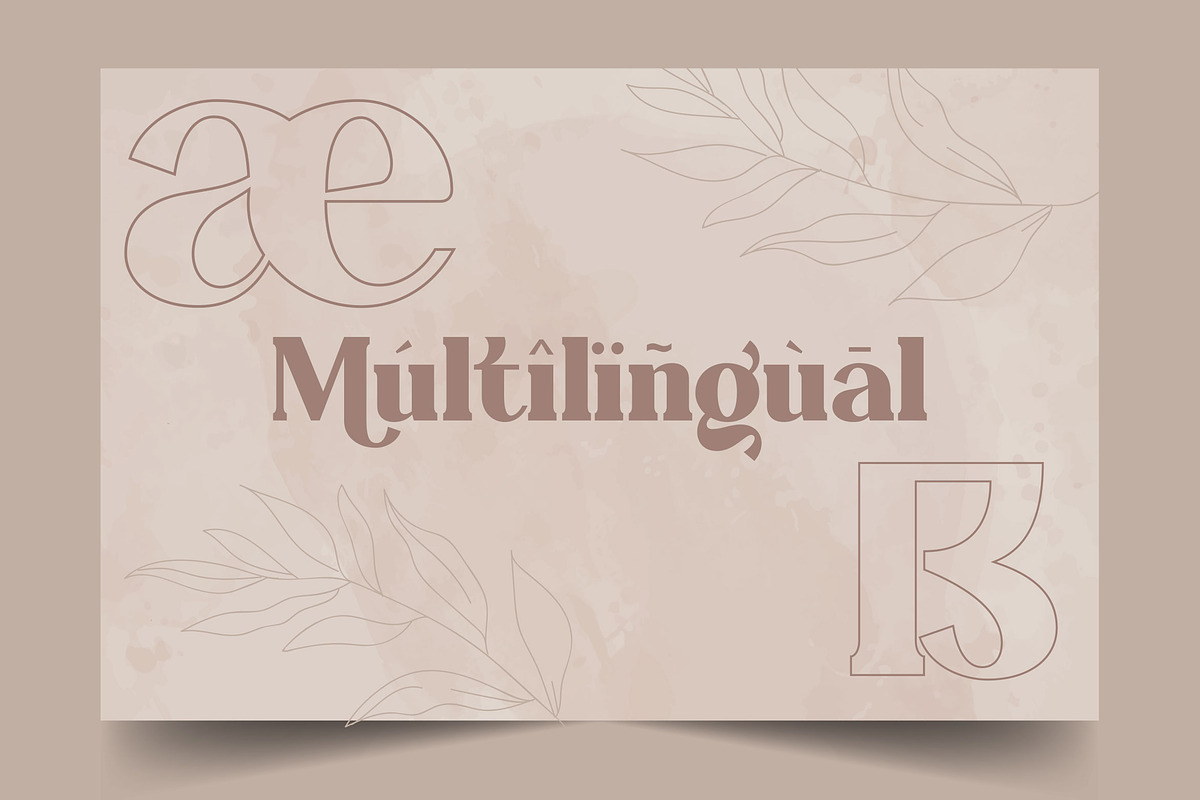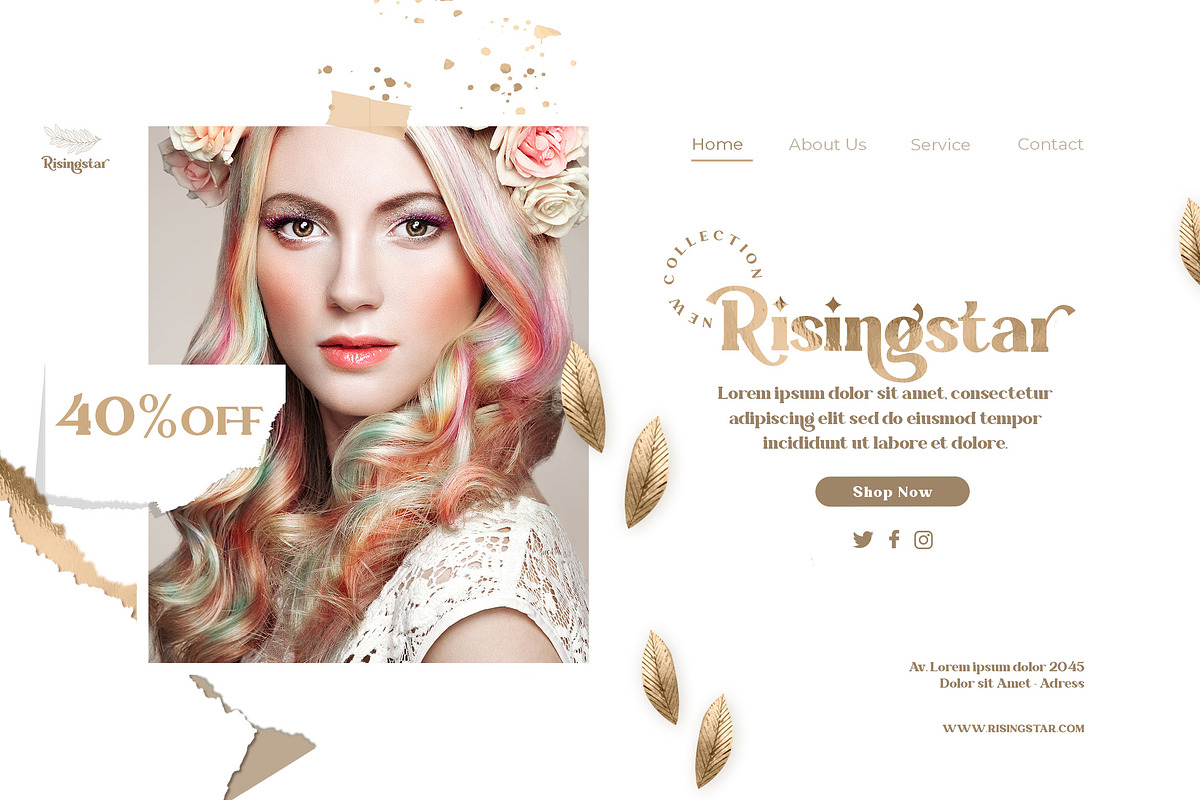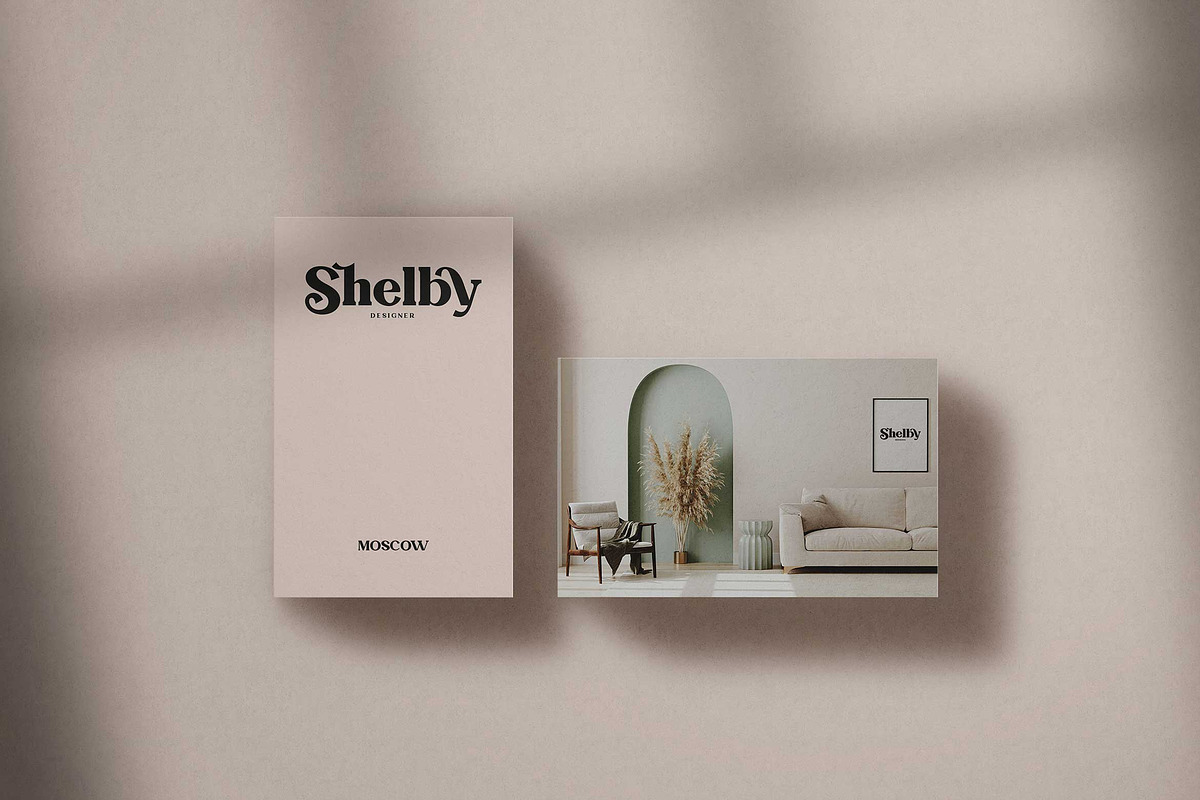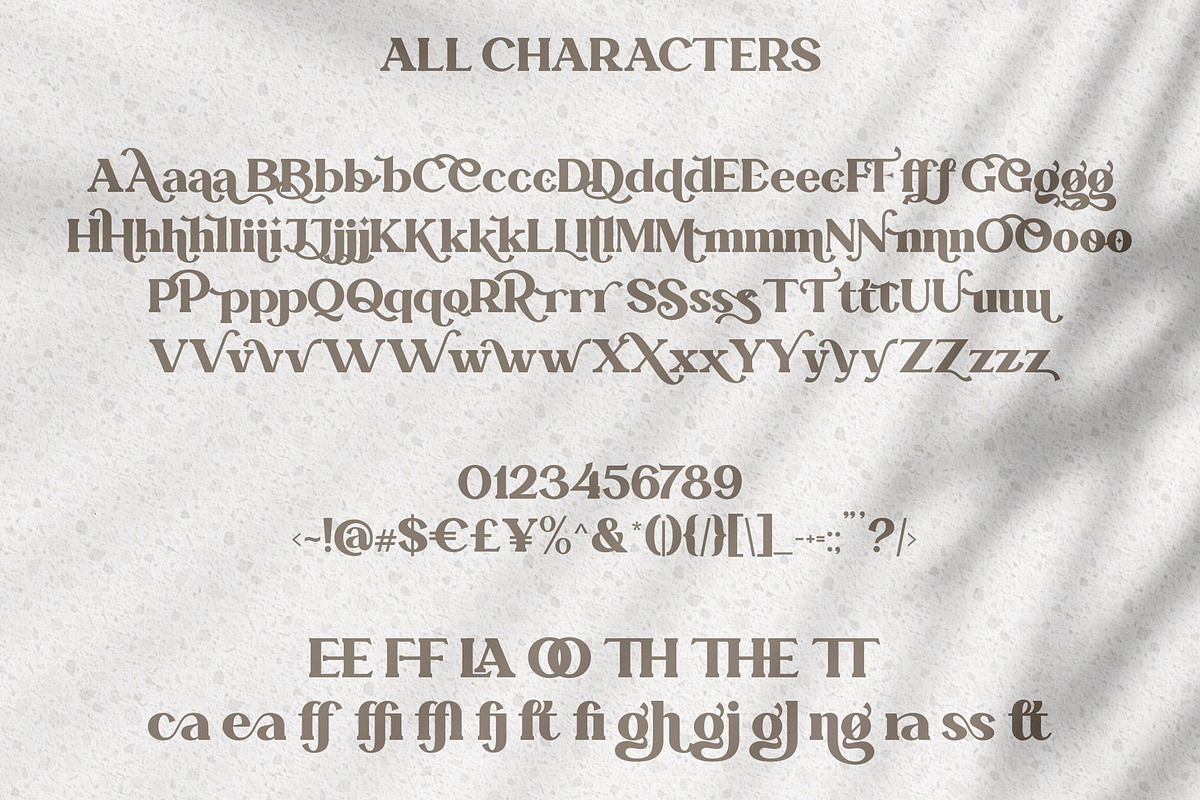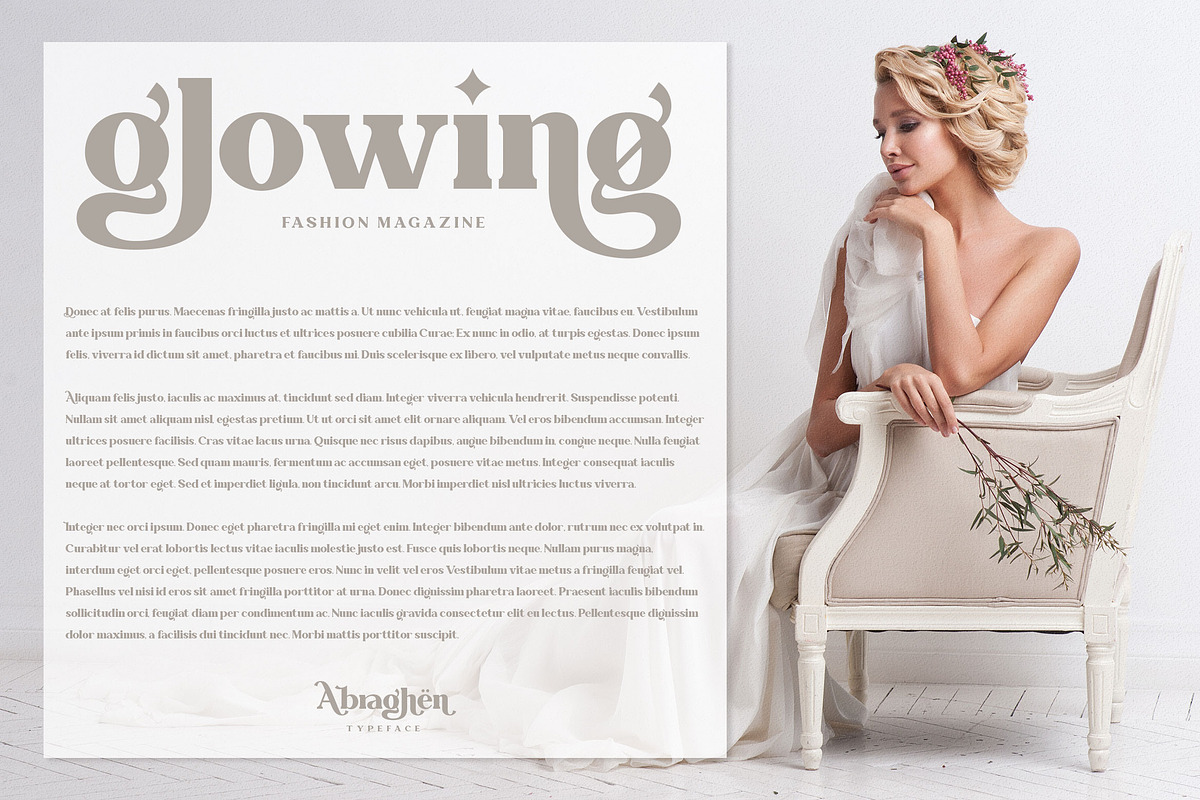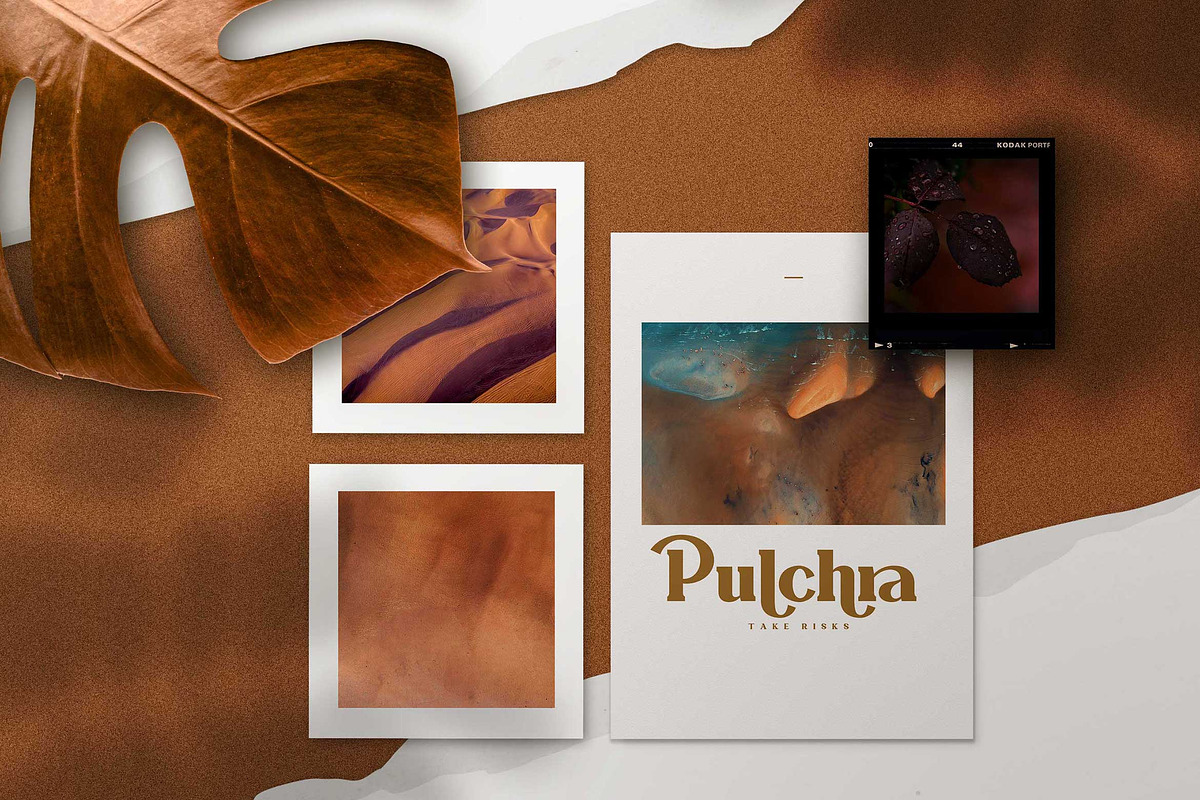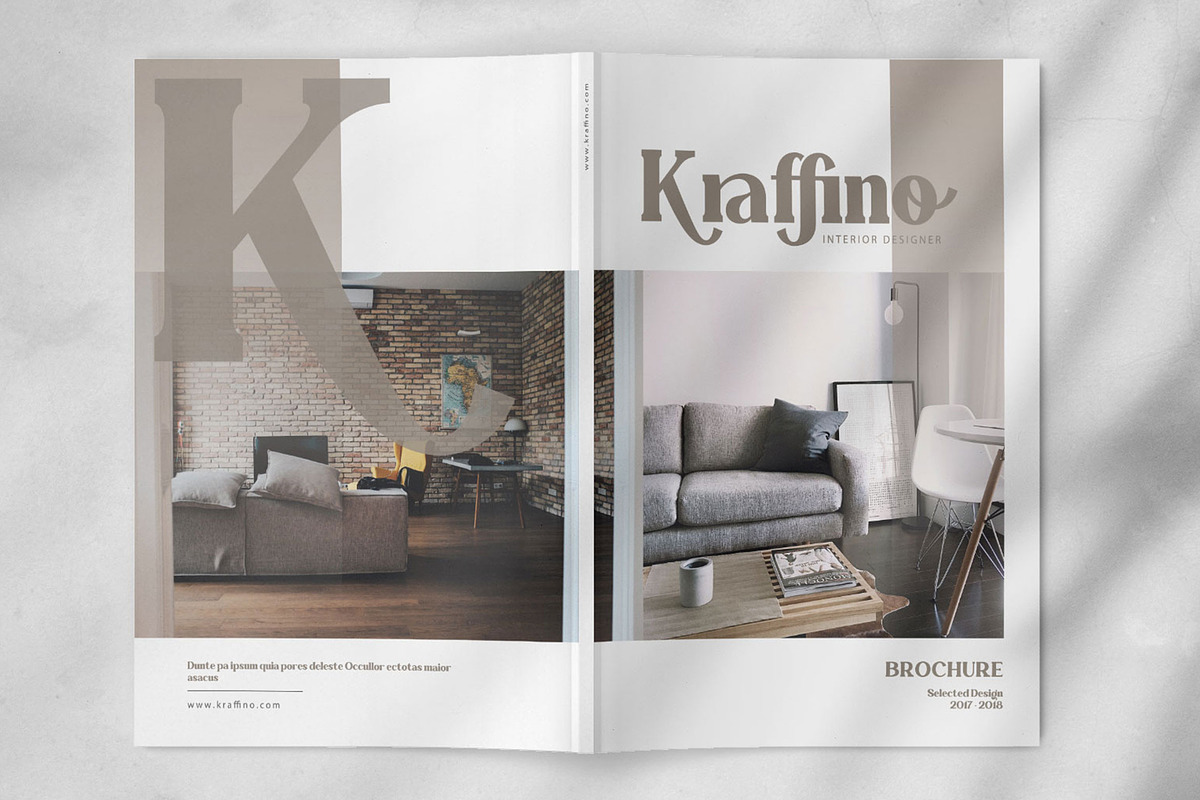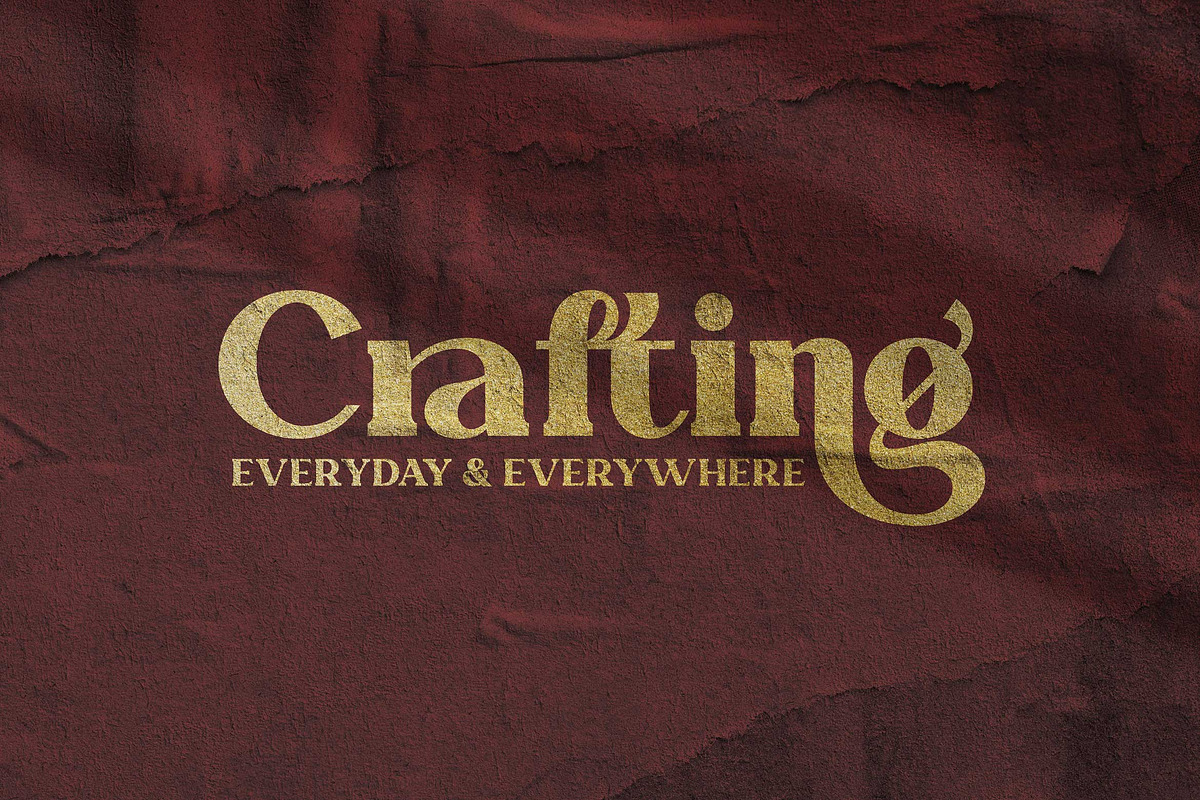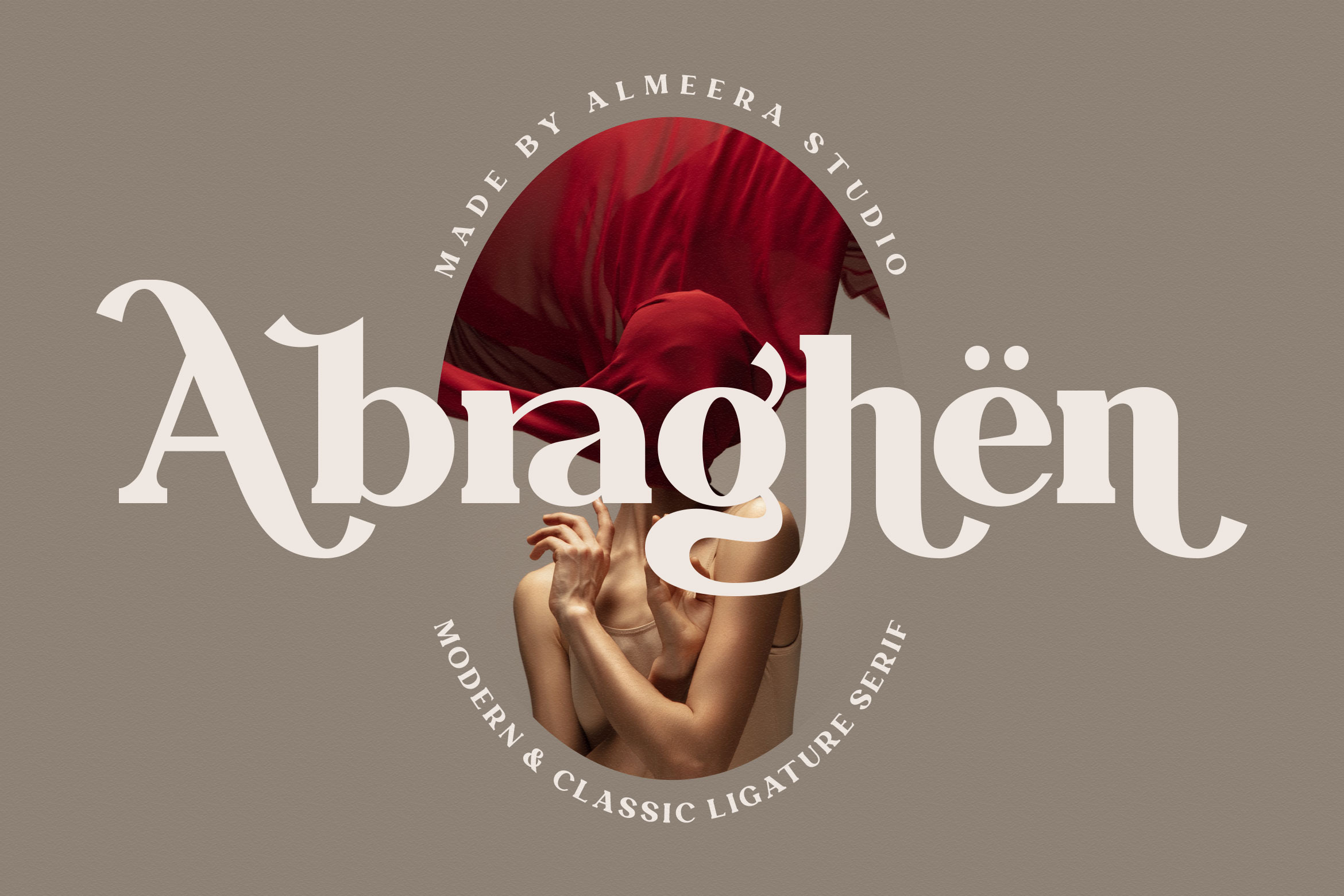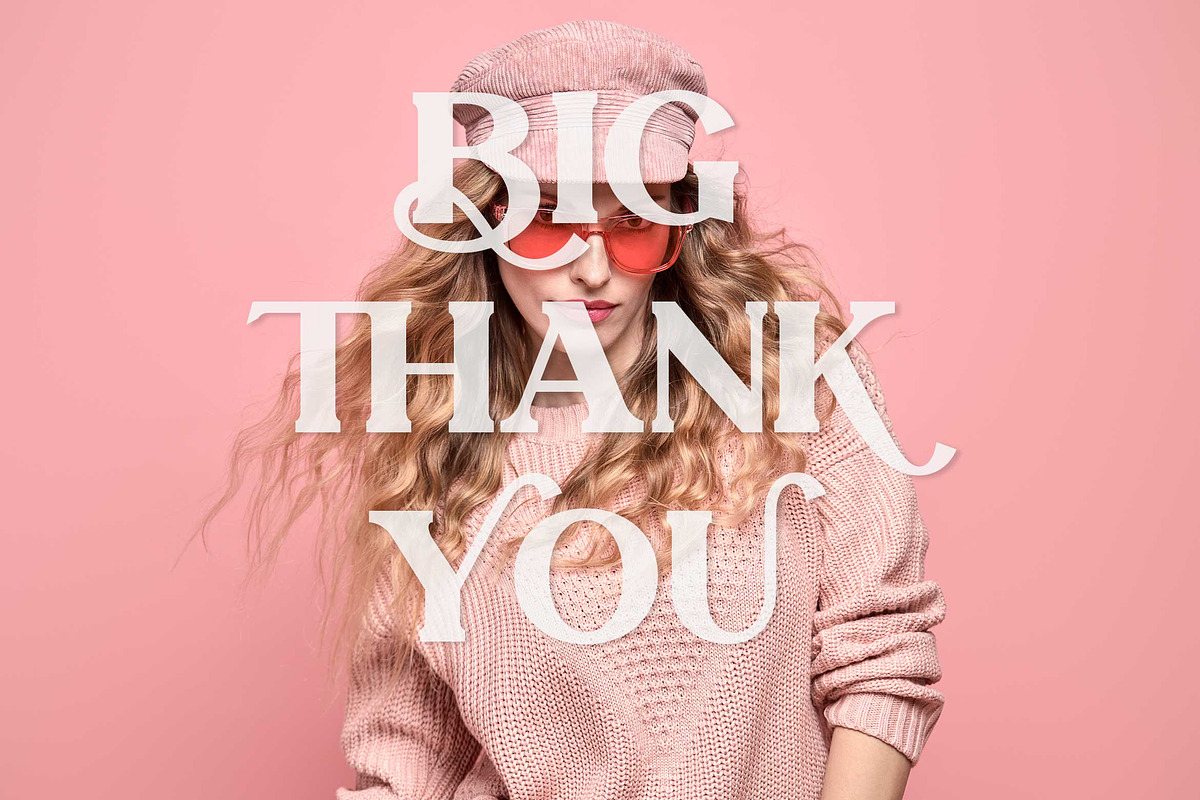
Abraghen - Ligature Serif Font
Introducing our newest typeface called Abraghen Serif Font with many Ligatures & Alternates . can make your lettering / logotype become more interesting. The clean and neat of a serif combined with the alternates & ligatures makes this font very attractive. This font perfectly made to be applied especially in logo, and the other various formal forms such as invitations, labels, logos, magazine headers, books, greeting / wedding cards, Clothing Branding, product packaging, fashion, make up, quotes, stationery, novels, cutting, labels and advertising purpose.